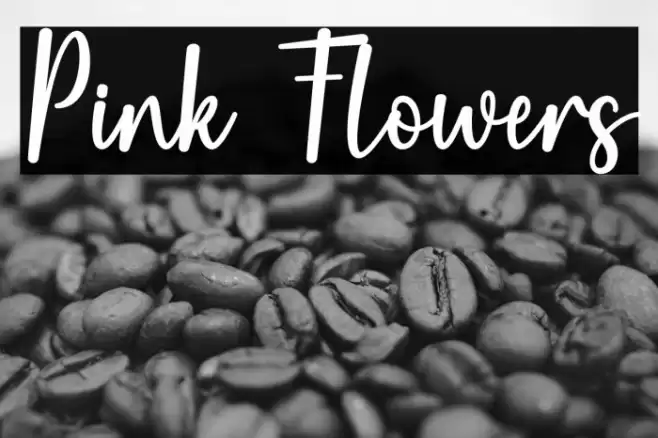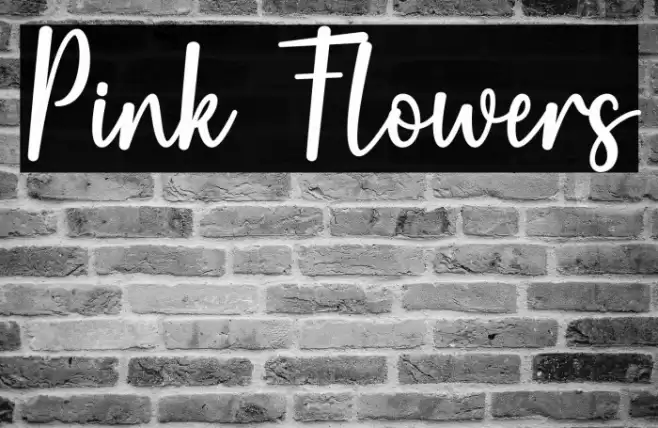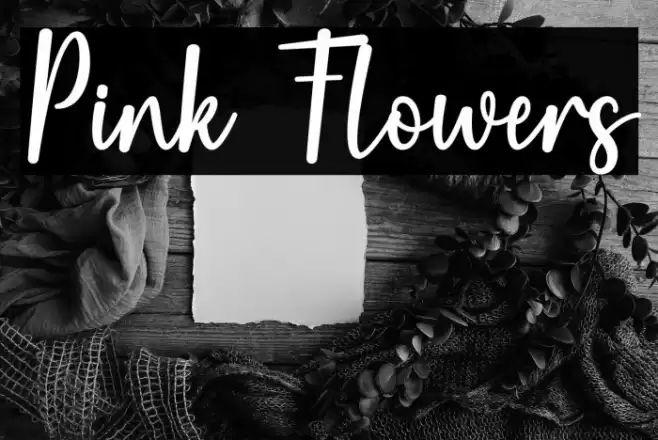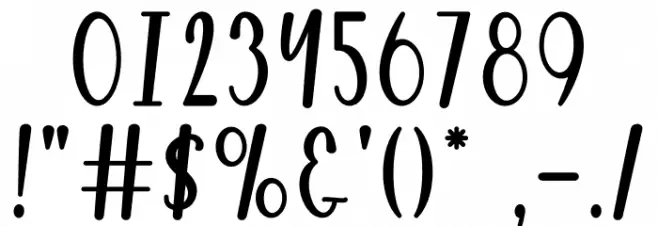
Pink Flowers Font
Pink Flowers Description
This font features a playful and modern script style with a handwritten feel. The uppercase letters are tall and slightly slanted, giving a sense of movement and fluidity. The lowercase letters maintain a consistent flow, with some characters like 'g' and 'y' having distinctive loops that add to the font's charm. The numerals are clear and easy to read, with a slight tilt that matches the overall style. Special characters are well-integrated, maintaining the same playful aesthetic. The font's overall appearance is casual yet elegant, making it suitable for various creative projects.
A playful, modern script font with a handwritten feel from Regular fonts.